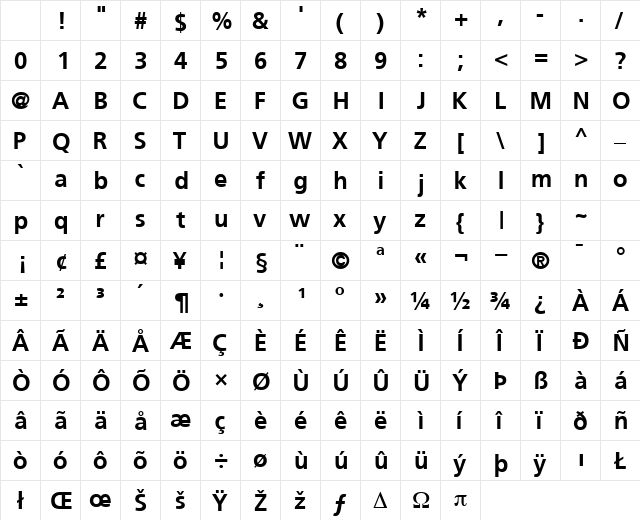
Complete PalmaSSK Bold glyph index. Displaying only characters natively supported by PalmaSSK Bold font.
PalmaSSK is a composed and adaptable typeface that performs quietly and consistently across a wide range of design contexts. Its bold stroke weight gives it real presence on the page.